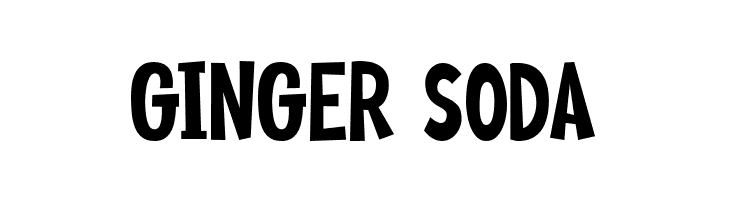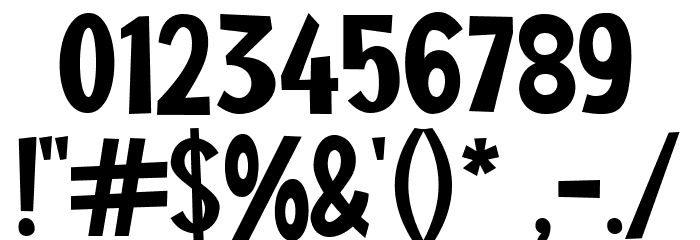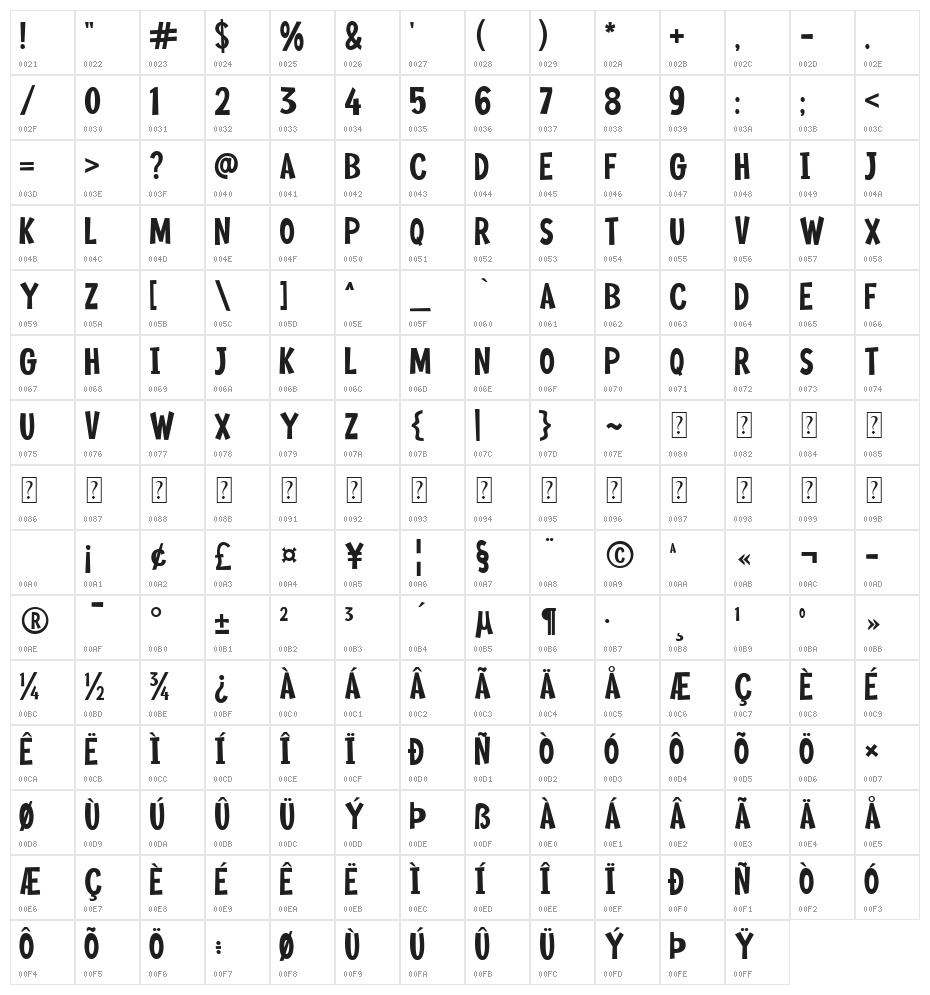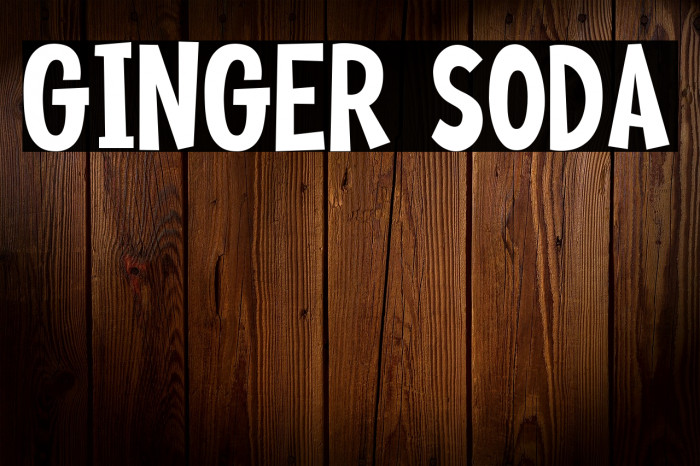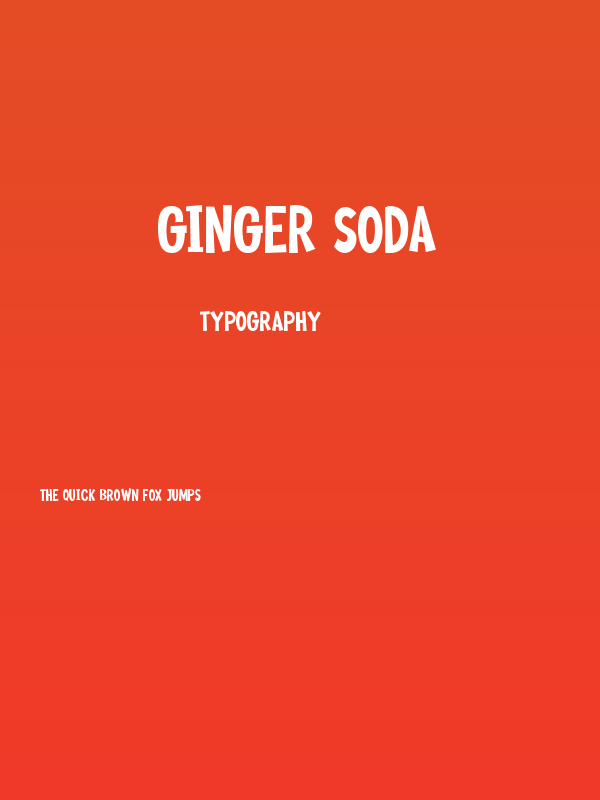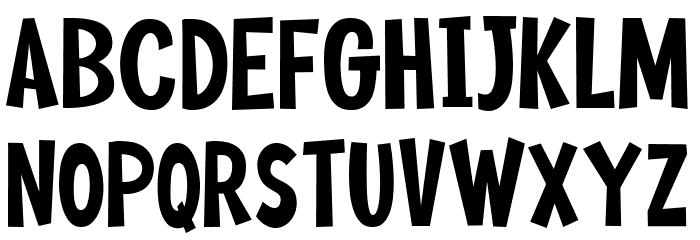
Ginger Soda Font
Ginger Soda Description
This font features a bold and playful style, characterized by its thick strokes and slightly irregular shapes, giving it a hand-drawn appearance. The uppercase letters are tall and slightly narrow, with a quirky, energetic vibe. The lowercase letters maintain the same playful essence, with rounded edges that add to the font's approachable and friendly feel. The numbers are bold and consistent with the overall style, ensuring readability while maintaining the font's unique character. Special characters are well-integrated, matching the bold and lively aesthetic. This font is perfect for projects that require a fun and informal touch, such as children's books, playful branding, or eye-catching headlines.
| Overall Style | Playful, Energetic, Hand-drawn |
| Proposed Projects | Ideal for children's books, playful branding, and eye-catching headlines. |